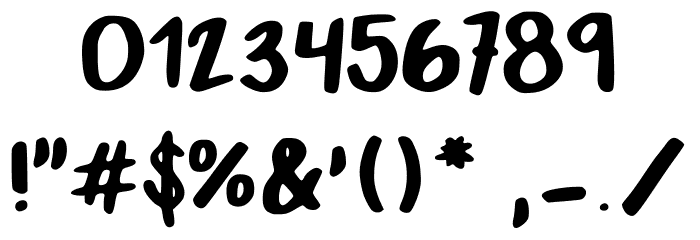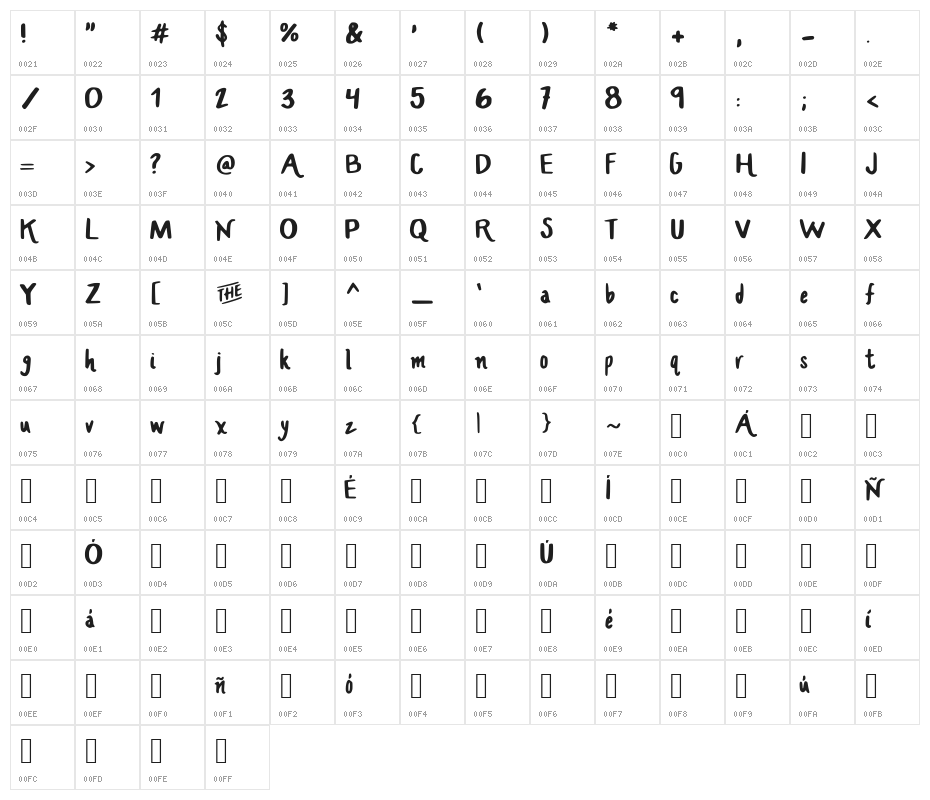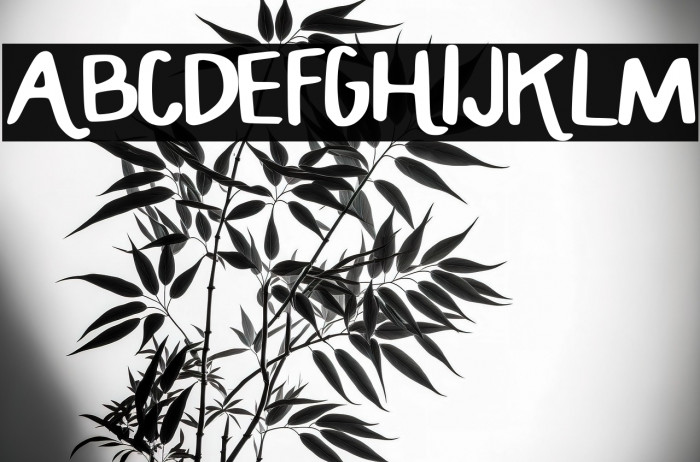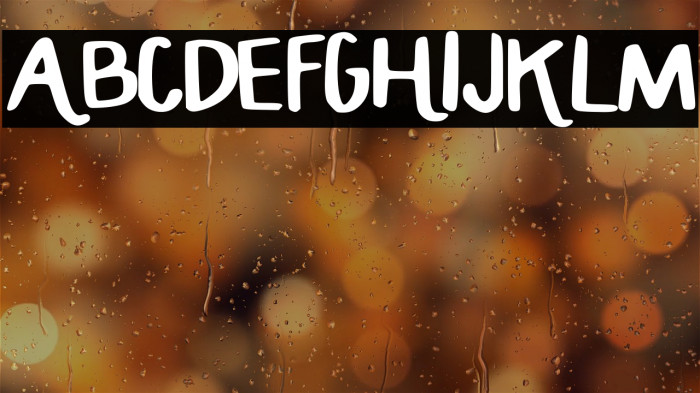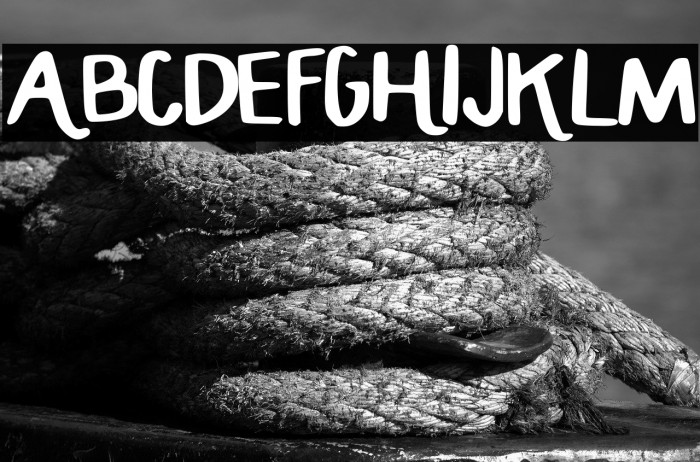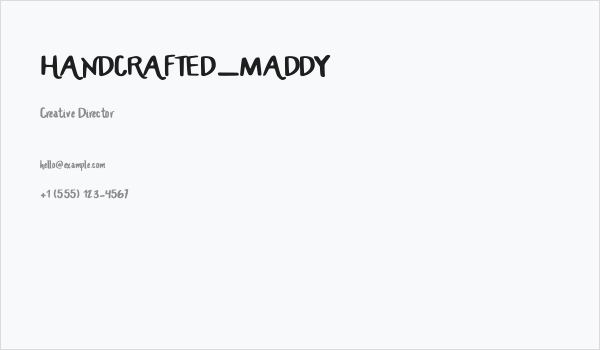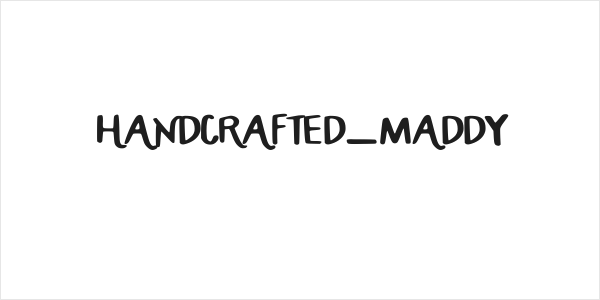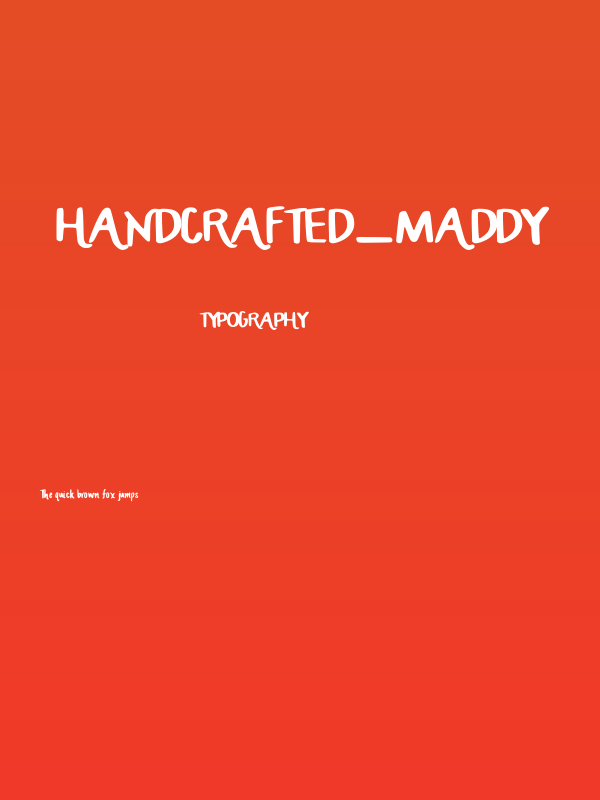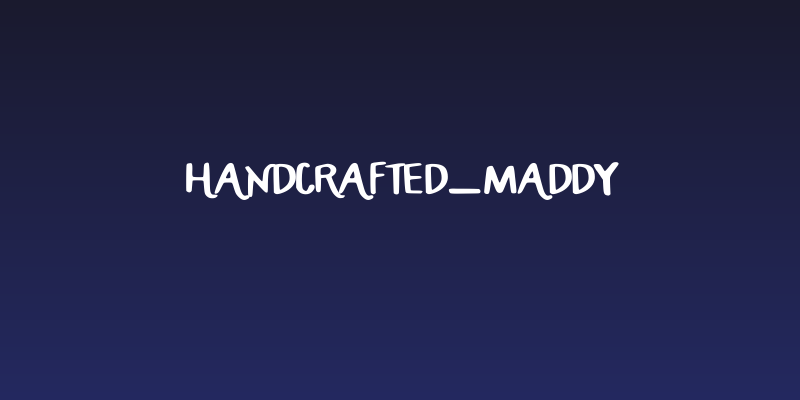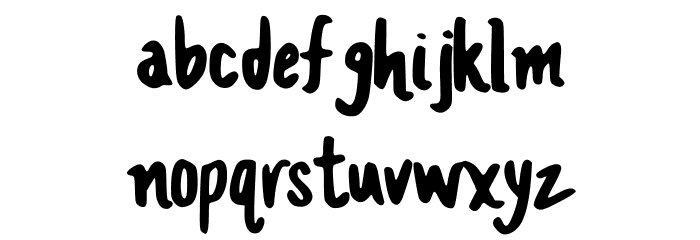
HANDCRAFTED_MADDY Font
HANDCRAFTED_MADDY Description
This font exudes a playful and handcrafted aesthetic, characterized by its bold and slightly irregular strokes. The letters have a whimsical, organic feel, reminiscent of hand-drawn or painted text. The uppercase and lowercase letters maintain a consistent style, with rounded edges and a casual flow. The numbers and special characters follow the same playful design, making the font versatile for creative projects. Its unique style is perfect for adding a personal touch to any design, making it ideal for projects that require a friendly and approachable look.
| Proposed Projects | Ideal for greeting cards, children's books, playful branding, and DIY projects. |